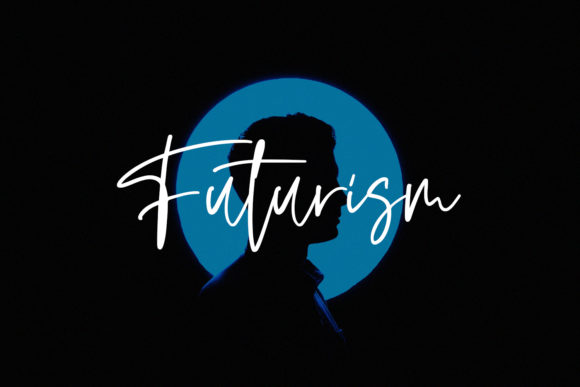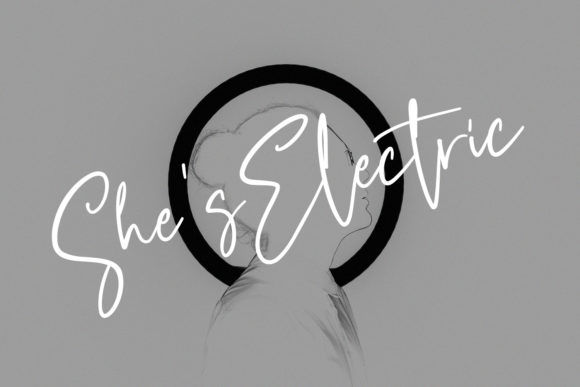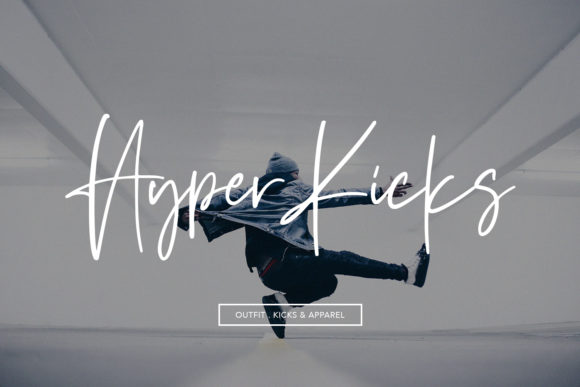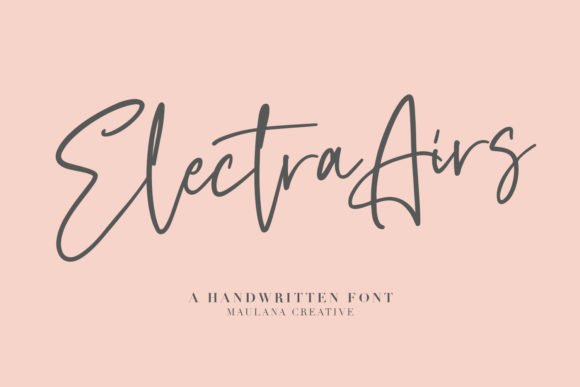
Introduction to Electra Airs Font
Electra Airs is a cute, soft hand-lettered script font.
Fall in love with its authentic feel and use it to create gorgeous wedding invitations, beautiful stationary art, eye-catching social media posts, and cute greeting cards .
Key Features of Electra Airs Font
Why Choose Electra Airs Font?
Electra Airs Font offers exceptional quality and versatility, making it a valuable addition to your design toolkit. Whether you’re creating for personal projects or commercial use, Electra Airs Font delivers professional results.